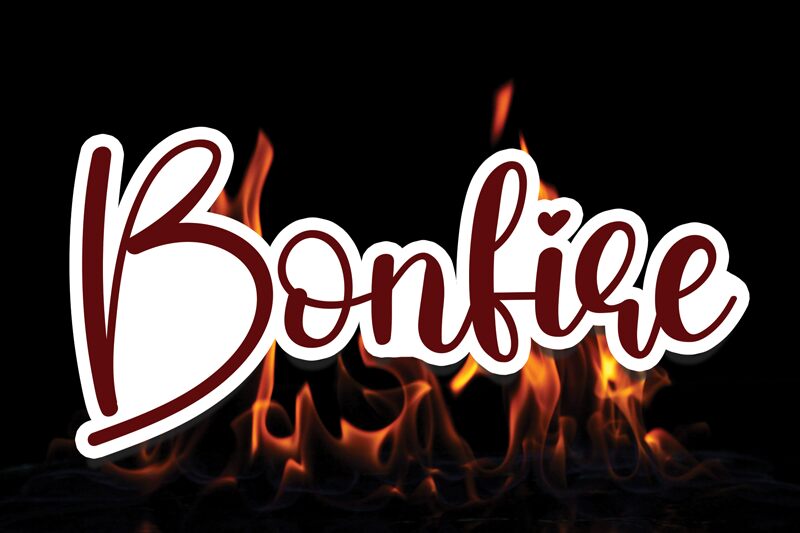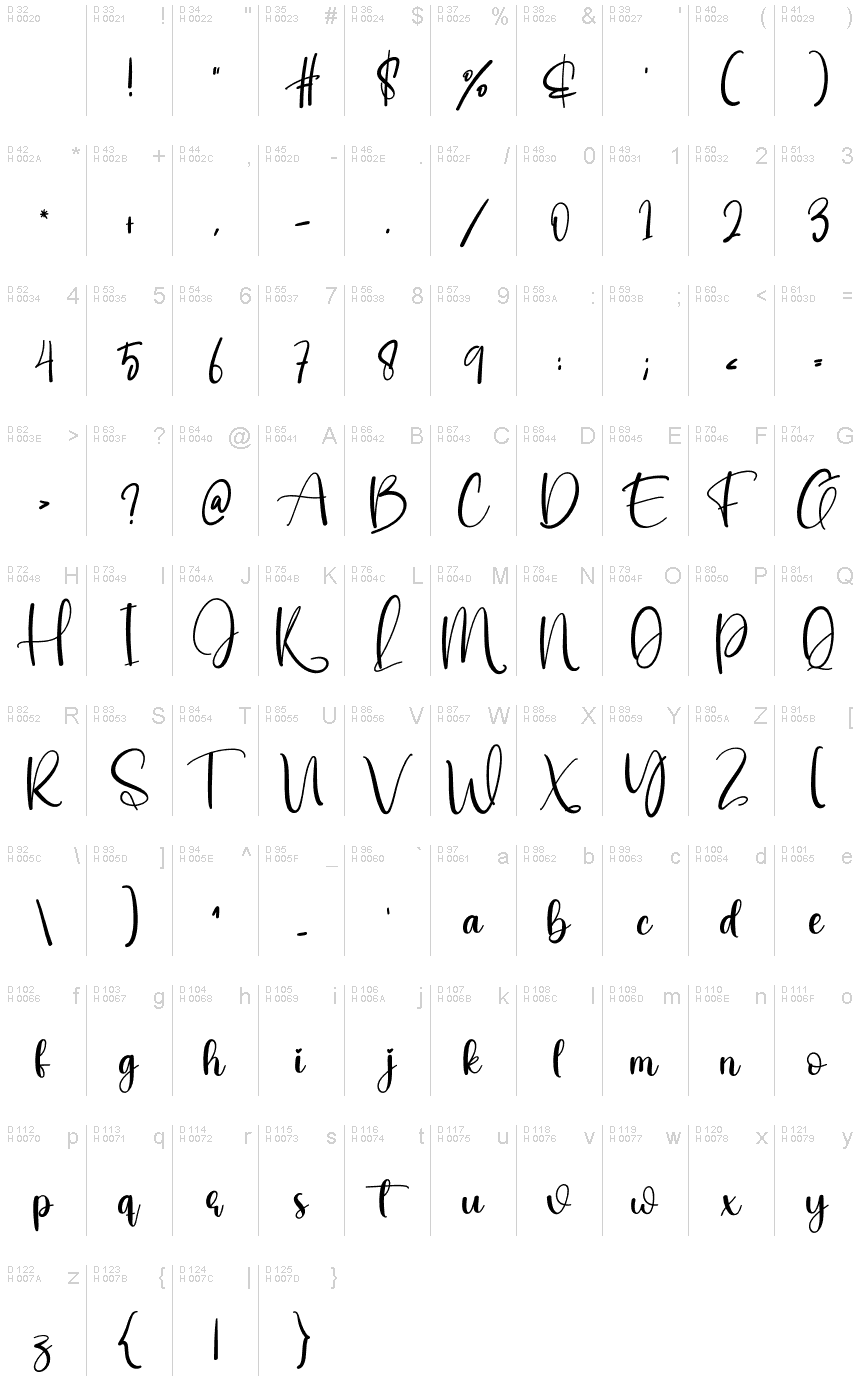
Bonfire
Bonfire, a creation by Scratchones, brings the warmth and individuality of handwritten text to your digital projects. This semi-light font exudes a casual elegance with its flowing lines and organic structure, capturing the essence of personal touch in each character. Its aesthetic appeal lies in the perfect balance between readability and stylistic flair, making it an excellent choice for designs that require a touch of intimacy without sacrificing clarity.
With its handwritten style, Bonfire is adept at adding a human element to branding, invitations, and advertising campaigns. It is particularly well-suited for contexts that benefit from an approachable and relaxed tone. The semi-light weight ensures that it remains unobtrusive yet distinctive enough to leave an impression.
Whether you're crafting a logo that feels authentic or composing graphics that resonate with approachability and charm, Bonfire's unique characteristics make it adaptable across various creative endeavors. Embrace its potential to transform your message into something truly inviting.